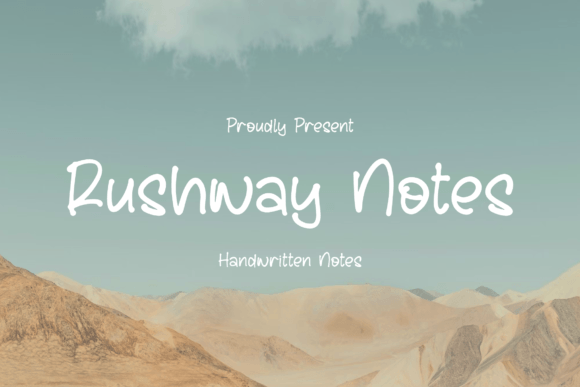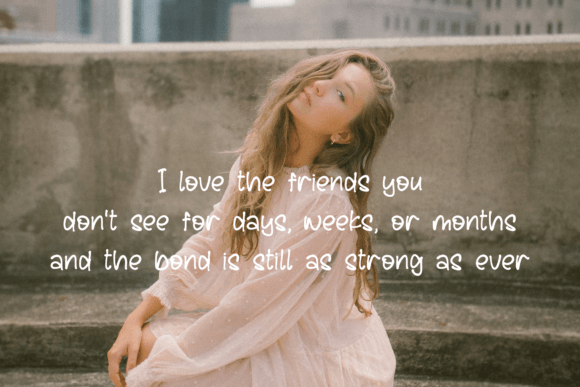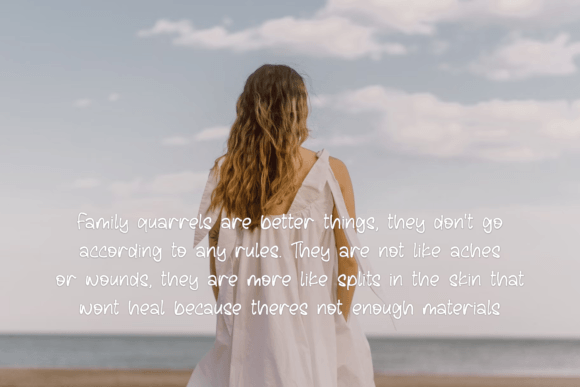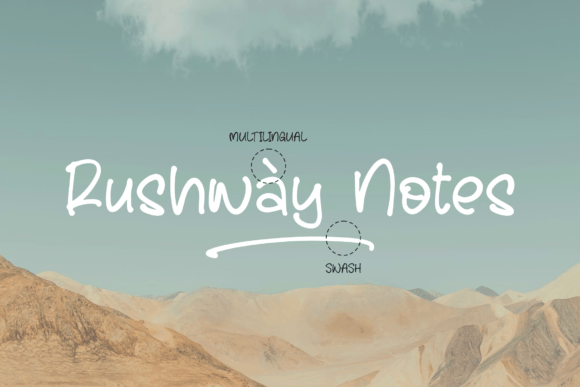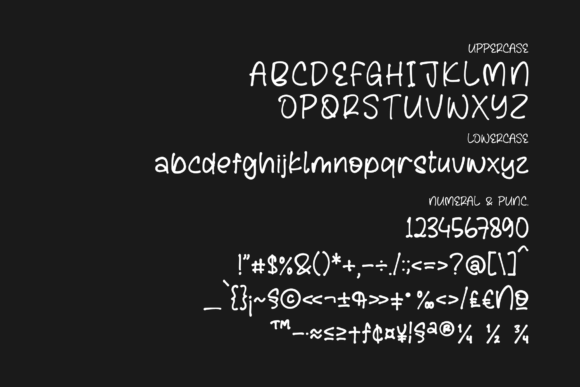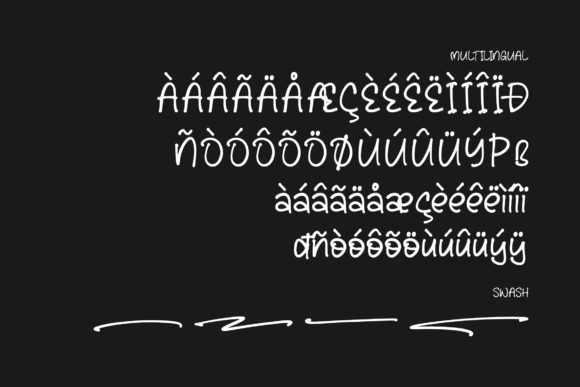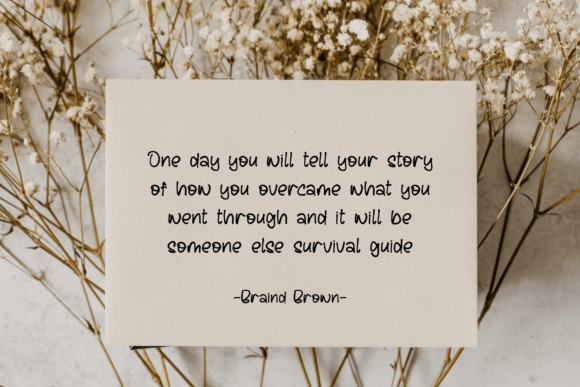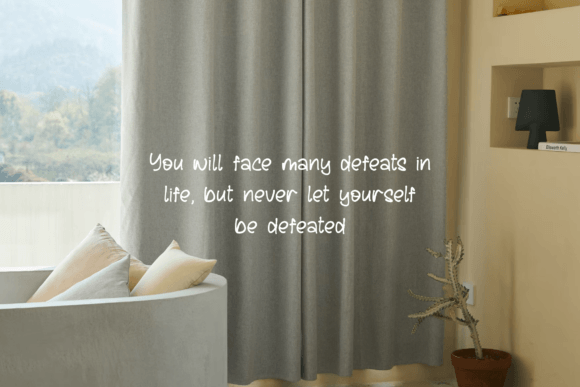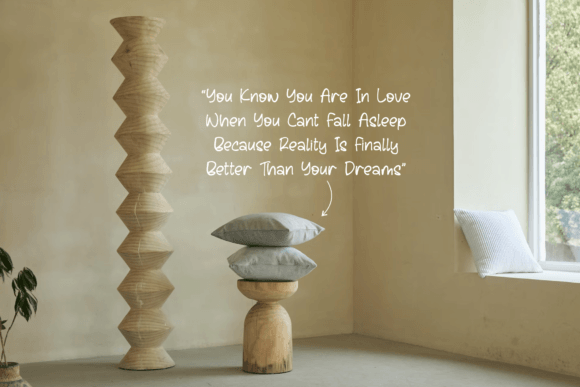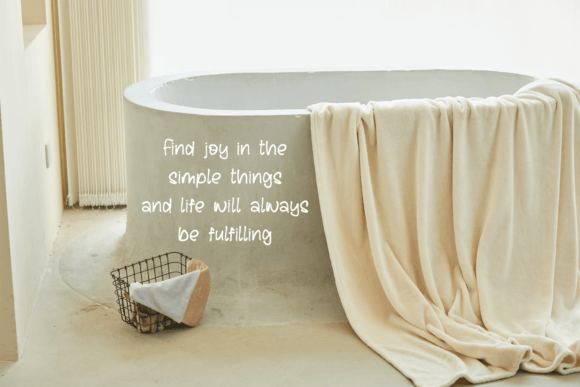
Rushway Notes Font
About Rushway Notes Font
**Rushway Notes Handwritten Font – For a Personal and Artistic Touch**
The Rushway Notes Handwritten Font is a delightful typeface that brings a personal and artistic touch to your design projects. With its handwritten style, this font is a versatile choice for a wide range of creative applications. Here’s how you can make the most of the Rushway Notes Handwritten Font:
1. **Logos & Branding:** Create unique and authentic logos and branding materials that resonate with a personal touch. Rushway Notes adds a sense of handcrafted charm to your brand identity.
2. **Homeware Designs:** Use Rushway Notes to design patterns, prints, or labels for homeware products. Its handwritten look adds warmth and character to home decor items.
3. **Product Packaging:** Customize product packaging with Rushway Notes to give your products a handmade and artisanal feel. This font is ideal for packaging designs that require a personal connection with customers.
4. **Mugs:** Design custom mugs with hand-lettered messages or quotes using Rushway Notes. It adds a touch of creativity and warmth to your mug designs.
5. **Quotes:** Create beautiful quote graphics and posters with Rushway Notes. Its handwritten style makes quotes feel more authentic and relatable.
6. **Posters:** Design eye-catching posters for events, promotions, or art prints. Rushway Notes’ artistic flair adds an engaging and unique look to your poster designs.
7. **Shopping Bags:** Customize shopping bags for your brand or store with Rushway Notes. It gives shopping bags a personal and artisanal touch.
8. **T-Shirts:** Create custom T-shirt designs with handwritten text or slogans using Rushway Notes. It’s perfect for adding an artistic element to apparel.
9. **Book Covers:** Design book covers with Rushway Notes for a personal and inviting look. It’s well-suited for book genres that aim to connect with readers on a personal level.
10. **Name Cards:** Design memorable name cards and business cards that stand out with Rushway Notes’ handwritten typography. It leaves a lasting impression.
11. **Invitation Cards:** Customize invitation cards for weddings, parties, or special events with Rushway Notes. It adds a personal and artistic touch to your invitations.
12. **Greeting Cards:** Create heartfelt and artistic greeting cards with Rushway Notes. It conveys genuine emotions and sentiments.
13. **Labels:** Design labels for homemade or artisanal products with Rushway Notes. It adds a charming and handmade quality to your labels.
14. **Photography:** Apply Rushway Notes as a watermark to your photography to protect your images while maintaining an artistic and personalized touch.
15. **Watermarks:** Protect your digital content with Rushway Notes’ unique watermark. It adds a touch of artistry and authenticity to your digital creations.
16. **Special Events:** For any special occasion, use Rushway Notes to design materials like menus, place cards, and programs. It infuses a sense of personalization and creativity into your event designs.
The Rushway Notes Handwritten Font’s artistic and personal style makes it an ideal choice for projects that require a genuine and human connection. Its versatility allows you to use it across various design applications, ensuring your projects reflect authenticity and creativity.